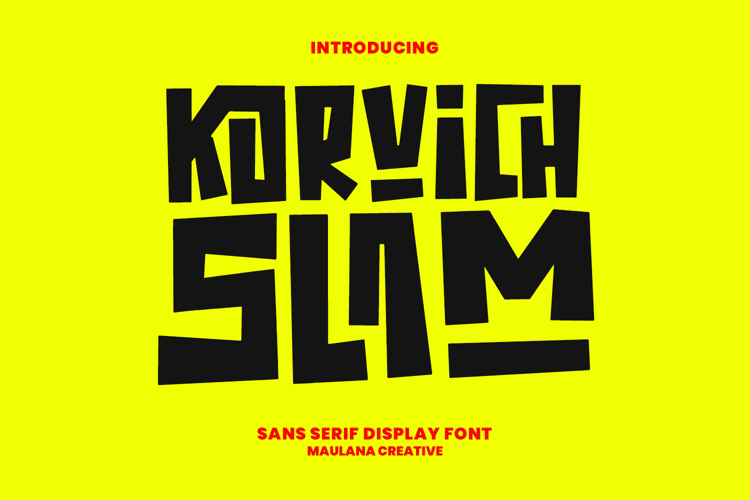
Korvich Slam Sans Serif Font
Korvich Slam is a bold and dynamic sans serif display font designed to capture attention and make a statement. With its sharp, blocky shapes and playful irregular cuts, this font adds an energetic and rebellious vibe to any design. Perfect for posters, album covers, streetwear branding, event promotions, or any project that needs a loud and unique voice.
Its strong presence, multilingual support, and alternate styles make Korvich Slam a versatile typeface for modern creatives who want to stand out. Whether you’re designing for digital or print, this font will bring power, personality, and bold impact to your work.
Bring your message to life with Korvich Slam – the font that dares to be different.
- Ligatures and Alternate Style